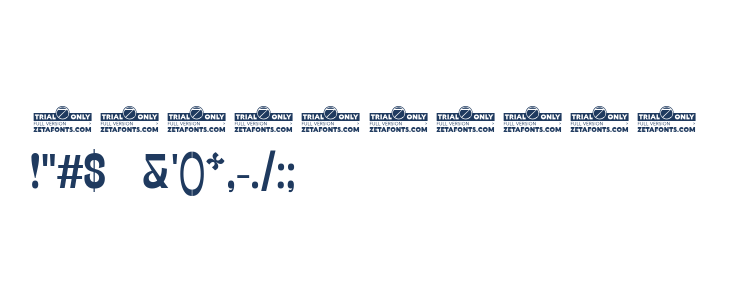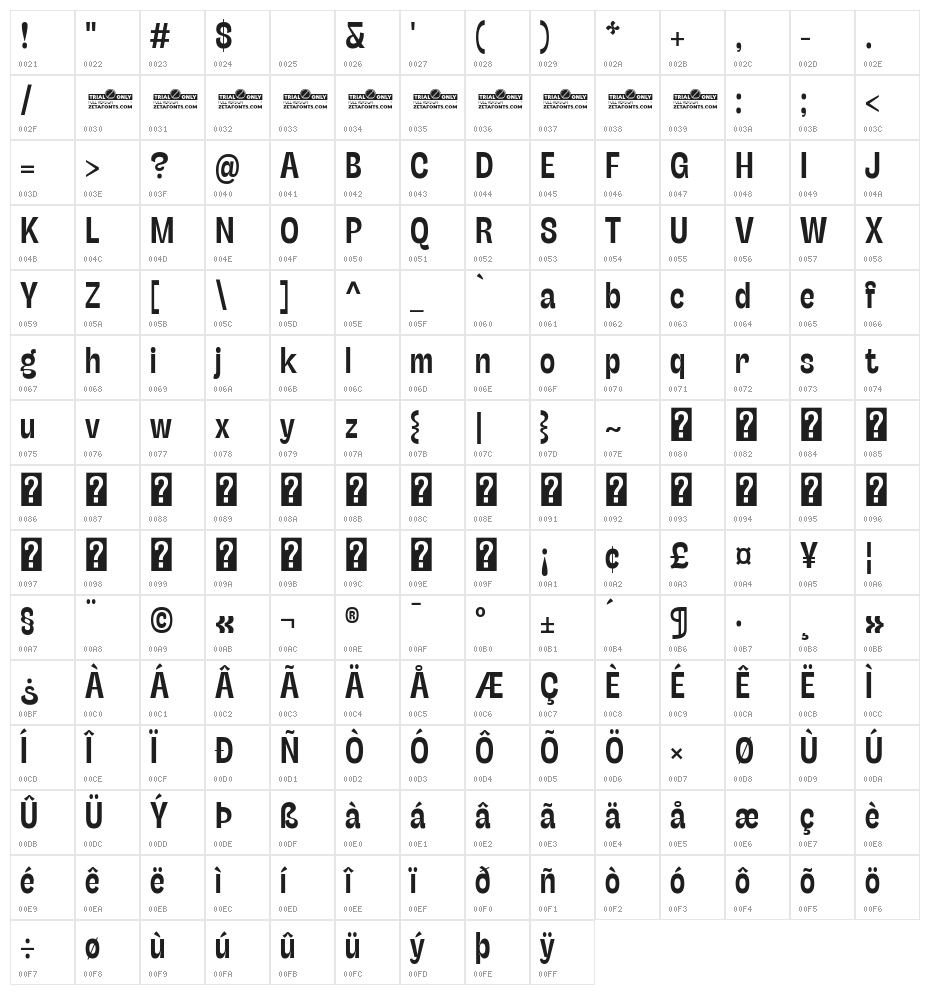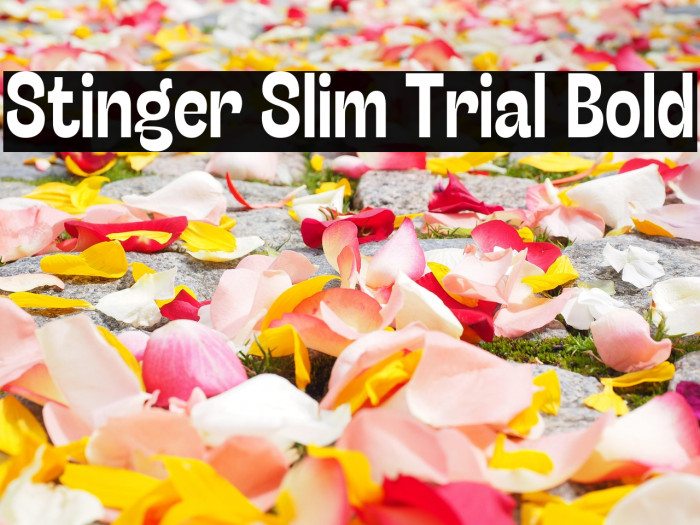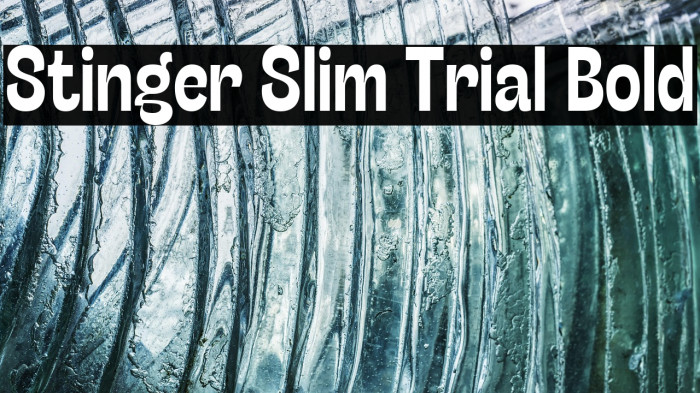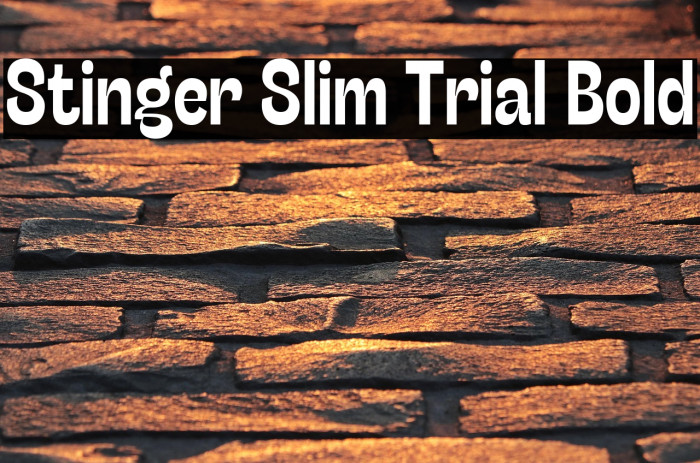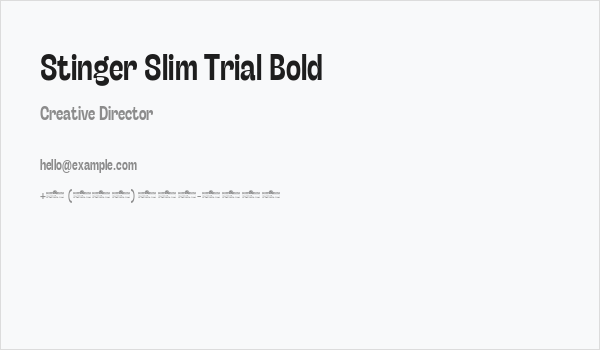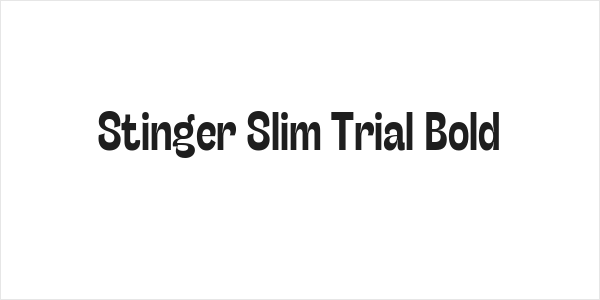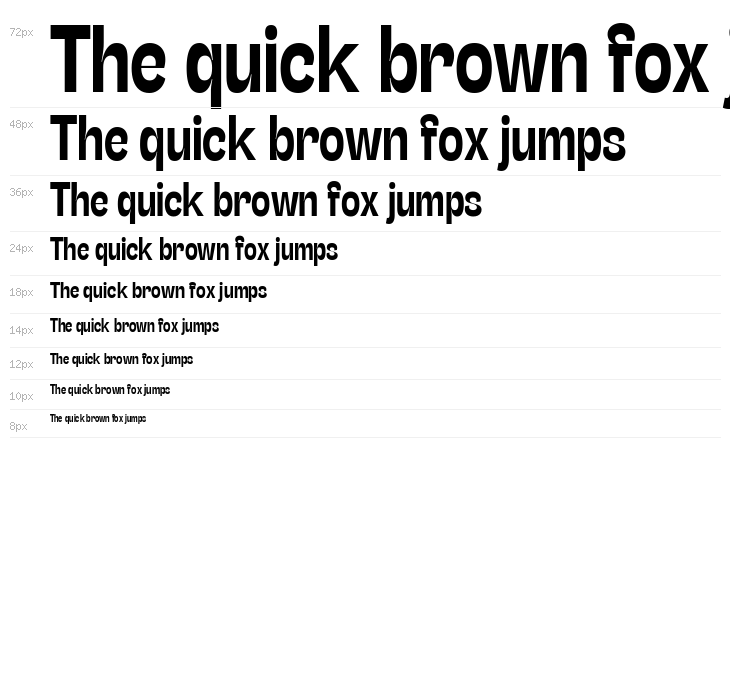
Stinger Slim Trial Bold Font
Stinger Slim Trial Bold Description
This font features bold, thick strokes that give it a strong and impactful presence. The characters are well-defined with a modern aesthetic, making it suitable for attention-grabbing headlines and titles. The uppercase and lowercase letters maintain a consistent style, with rounded edges that soften the overall look. The numerals and special characters are equally bold, ensuring uniformity across all text elements. Its design is clean and straightforward, with a focus on readability and visual appeal.
Proposed ProjectsIdeal for branding, advertising, poster design, and any project requiring a strong visual impact.